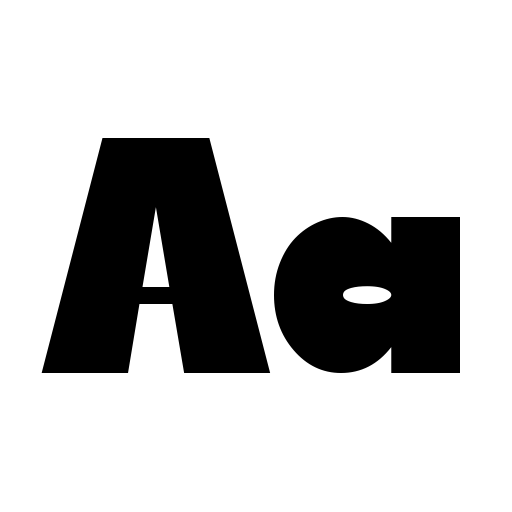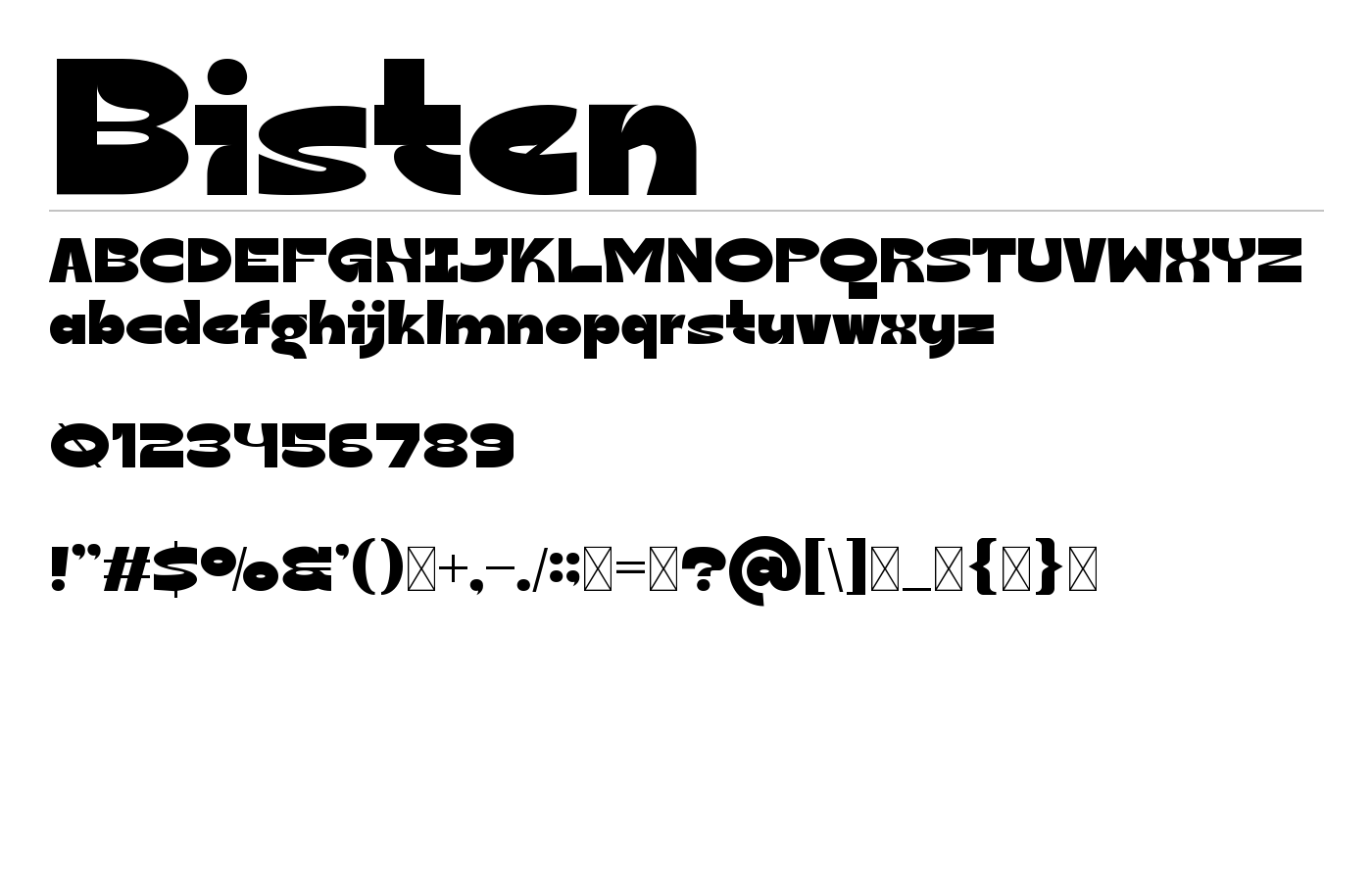
Bisten is a bold, geometric sans serif font with a strong and playful personality. Its heavy weight, compact width, and dramatic, angular shapes give it a distinctive, modern look that works well for impactful headlines, logos, and branding where a unique, attention-grabbing style is needed. This font is ideal for creative projects aiming to convey confidence and contemporary flair.
Bisten Font